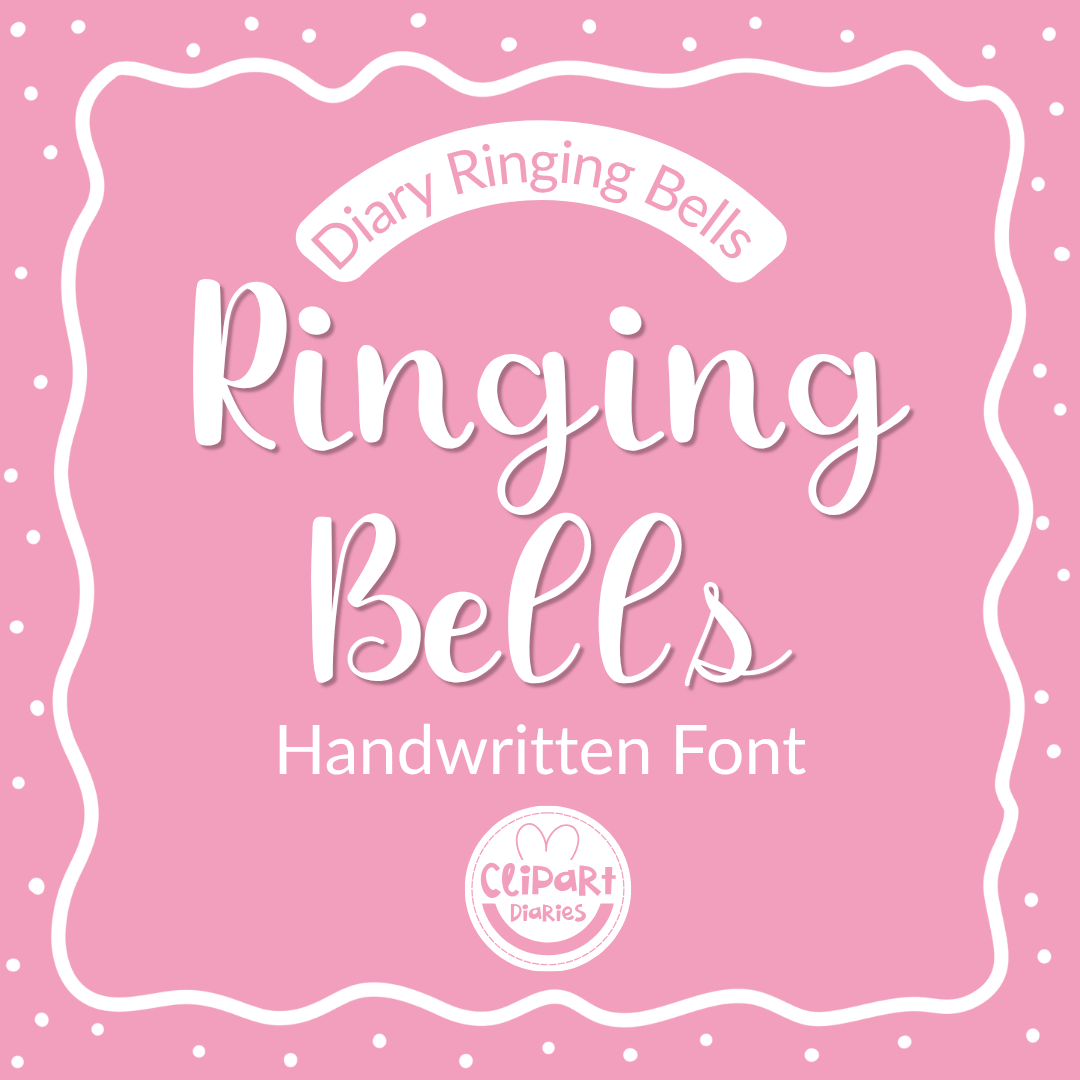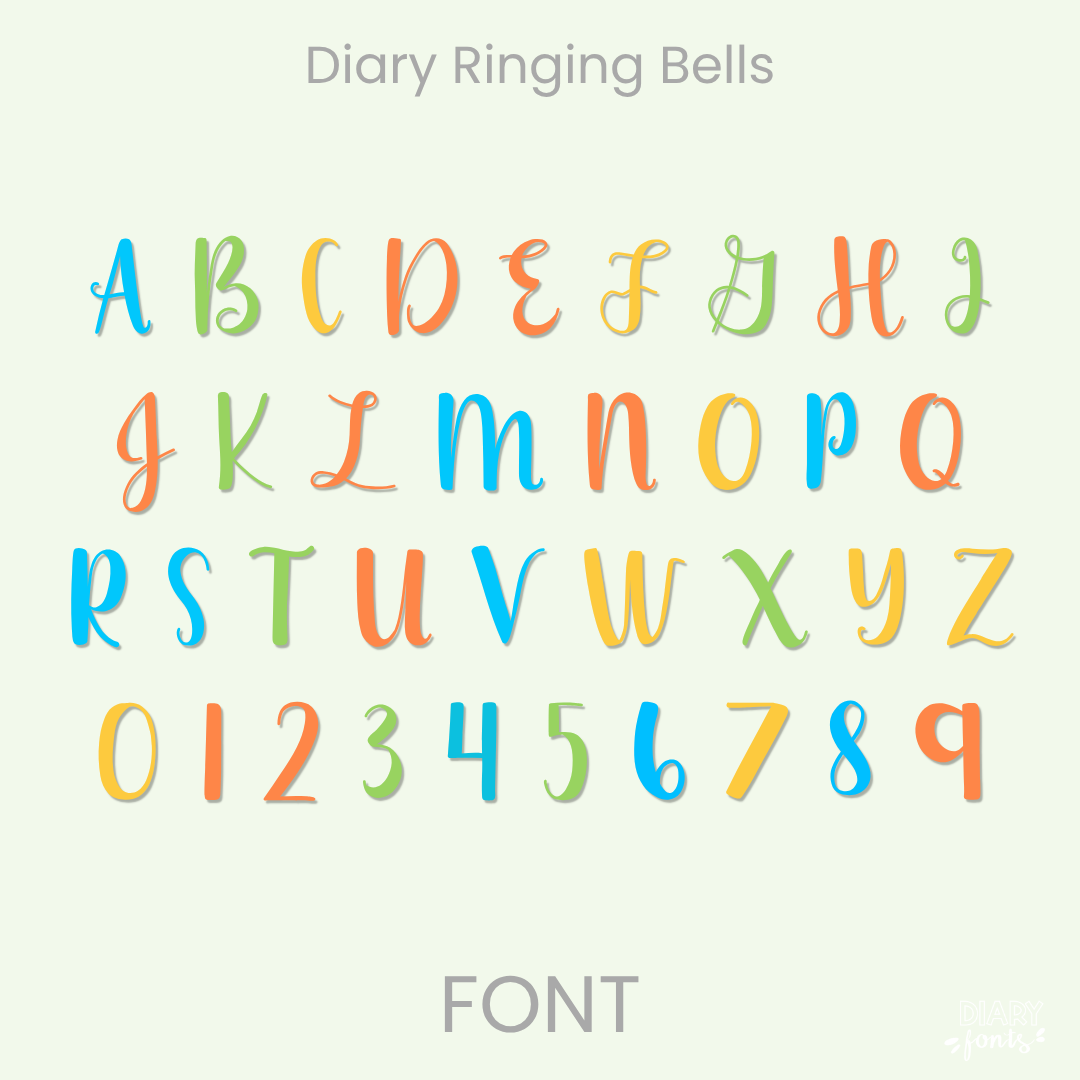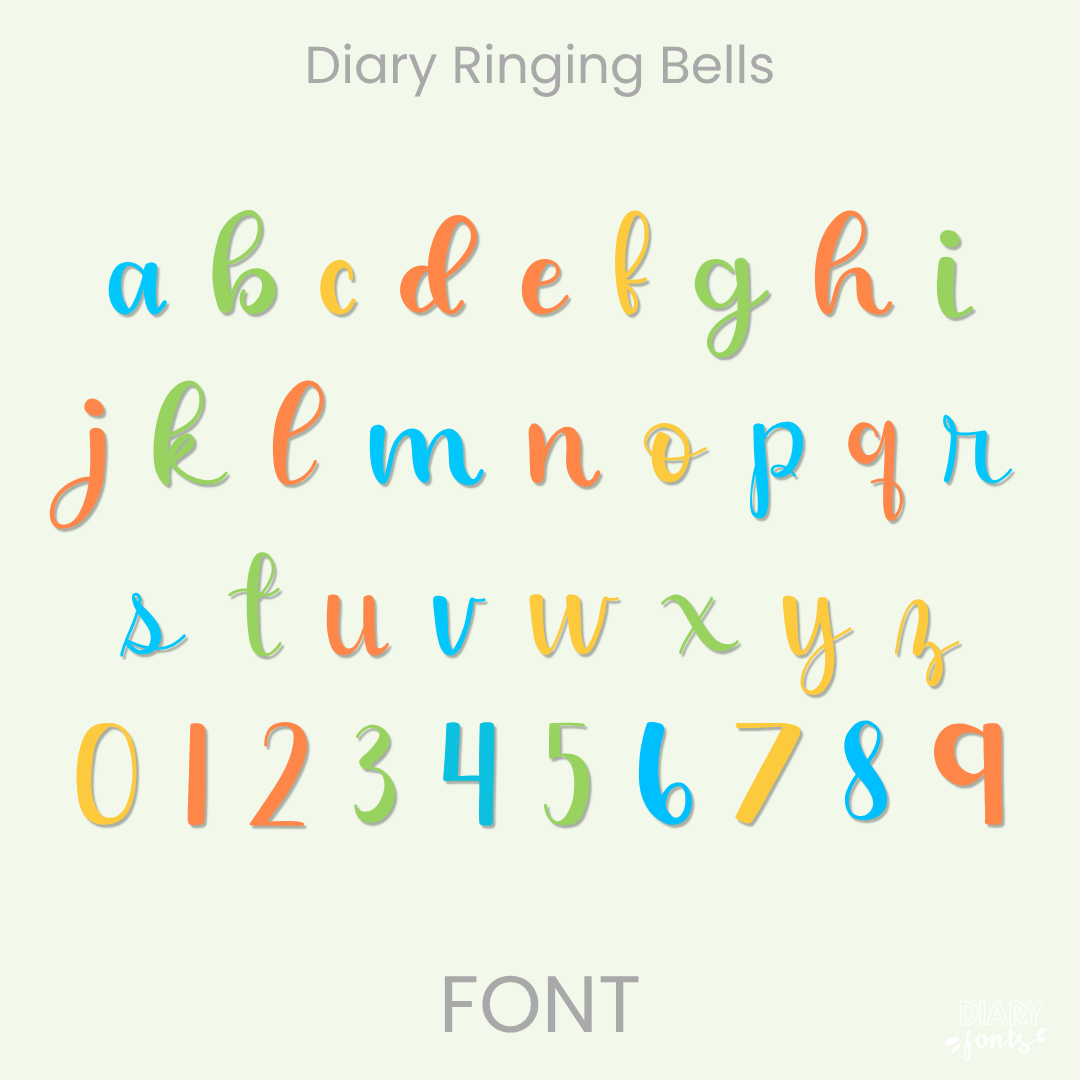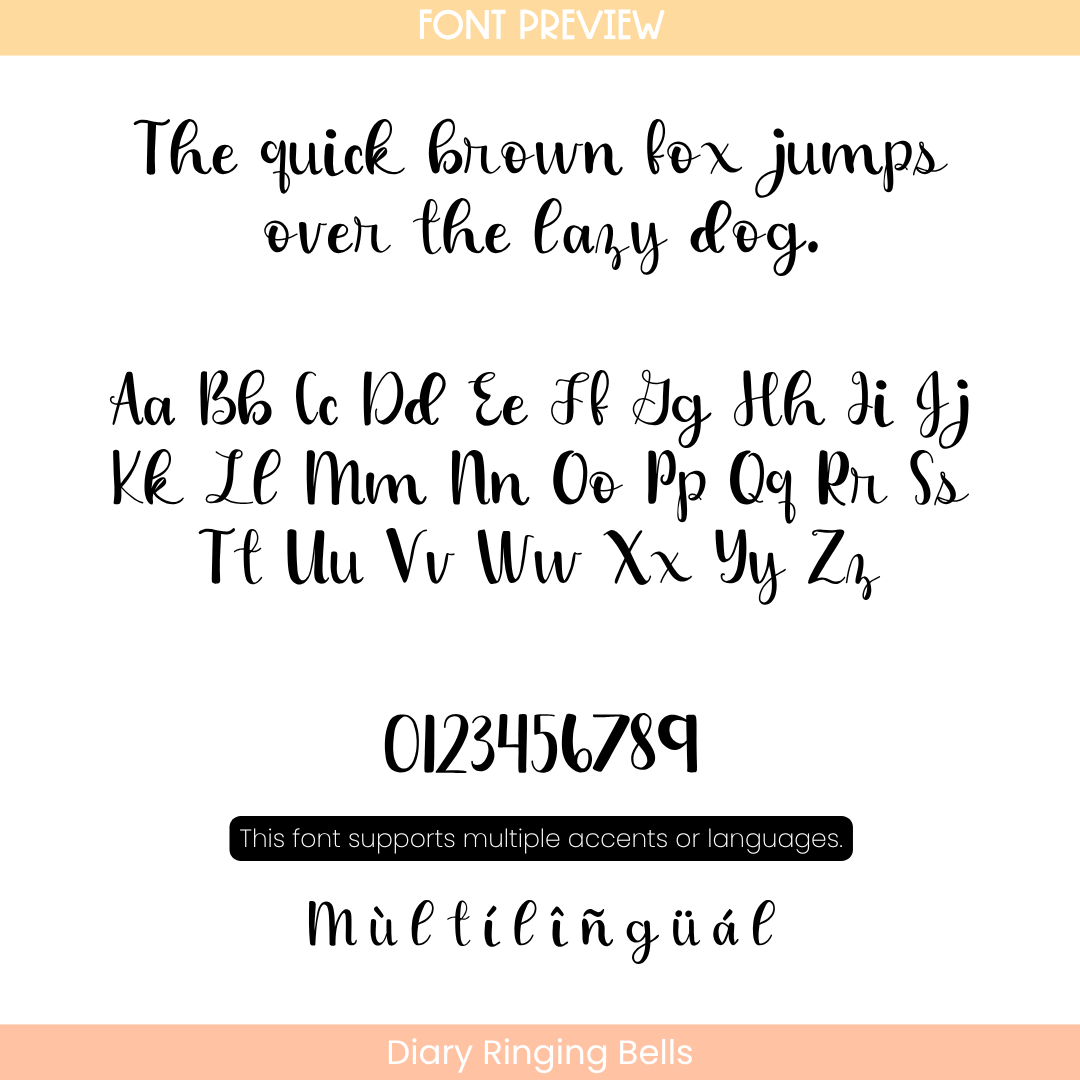
Diary Ringing Bells – Calligraphy Style Font
Diary Ringing Bells is a gorgeous, bouncy script font with a playful calligraphy feel, perfect for adding an elegant yet whimsical touch to your classroom resources and covers!
If you’ve been looking for a script typeface that is beautiful but still totally readable for your students, Diary Ringing Bells is exactly what your design toolkit needs. It features lovely cursive-style letterforms with smooth, fluid brush strokes, elegant loops on the uppercase capitals, and a delightful, subtle bounce along the baseline. It perfectly mimics stylish, hand-drawn calligraphy while maintaining clean lines and distinct character shapes so your text stays perfectly clear.
This font is absolute perfection for creating stunning teacher planner headers, accent text on morning presentation slides, elegant classroom labels, and eye-catching product covers. The complete character layout features a full set of fluid uppercase and lowercase script letters, matching stylized numbers, and multi-accent markings for complete multilingual support. It drops right into Canva, MS Office, or Adobe Apps on your computer, and works like a dream on your iPad with Procreate and GoodNotes. Whether you’re dressing up daily worksheets for your own students or styling premium digital assets for your online teacher shop, this elegant script brings a warm, hand-lettered touch to every project.